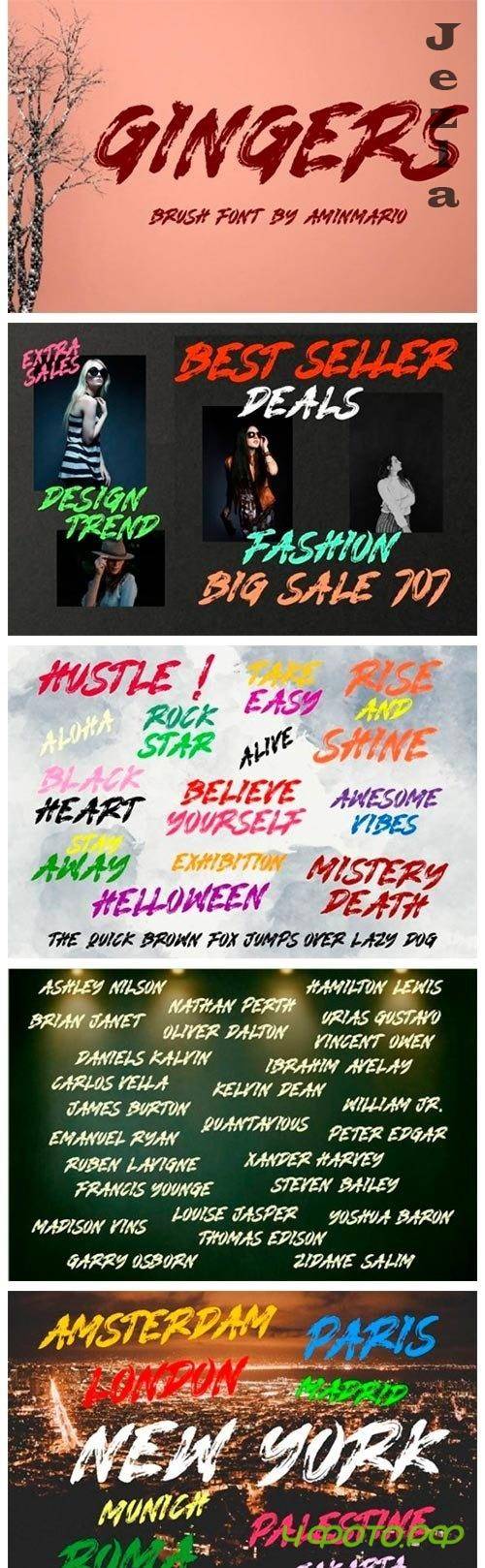
Gingers Font
Gingers results out of a stunning pairing of a brush pen and pencil that makes it look incredibly endearing and authentic. Use this gorgeous and unique handwritten font to bring any DIY project to life!